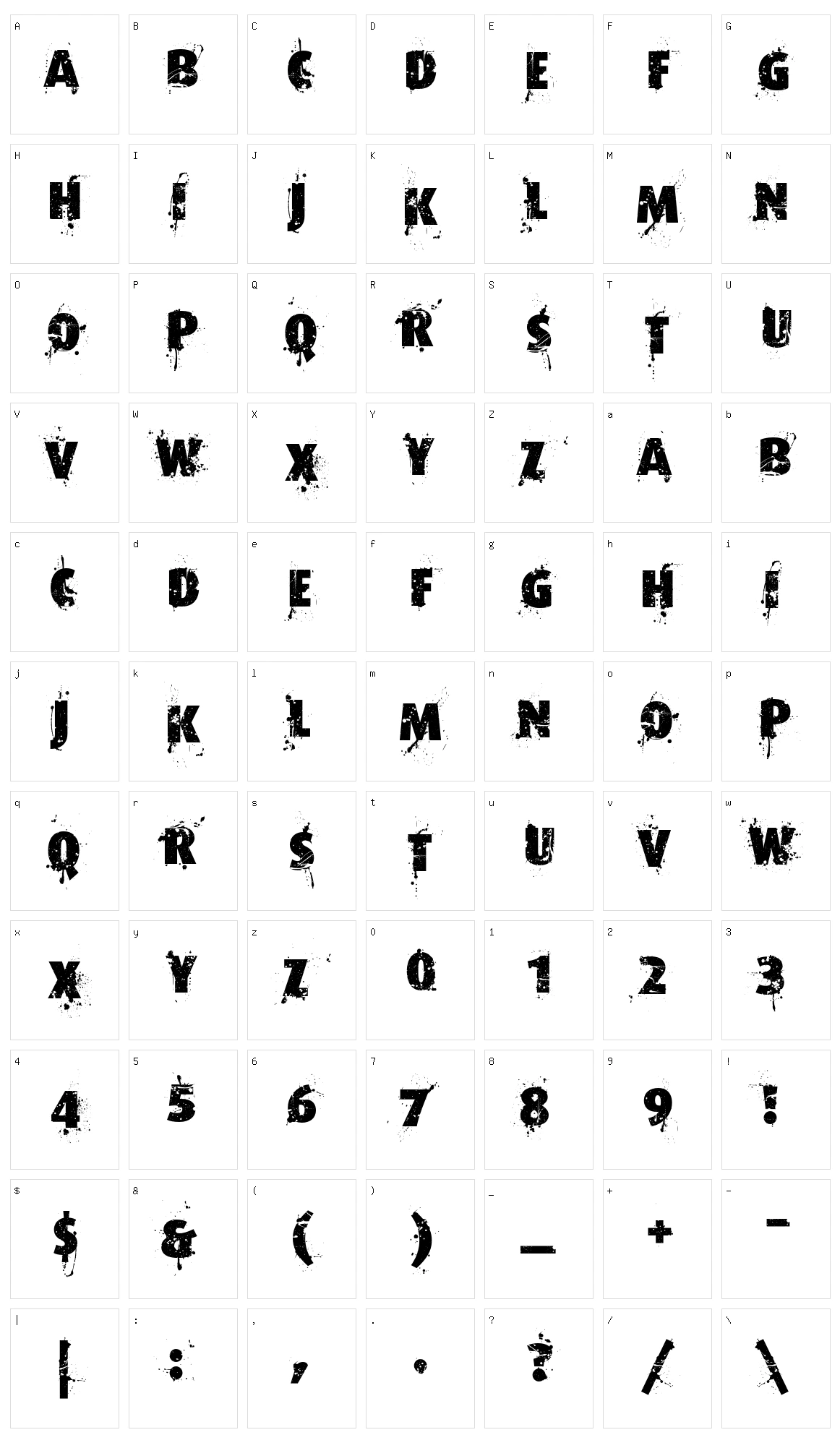
The free font Formfound.com is carefully designed by Peter Fritzsche, showcasing a thoughtful balance of creativity and usability and falls under the Destroy font style. When you download the ZIP file, it contains only 230 KB of font files, making it lightweight and quick to download. Please review the license details below to understand permitted usage and distribution rights. If license information is not available, we recommend using this font for personal projects only or contacting the author directly for commercial usage permissions.
"Formfound.com"